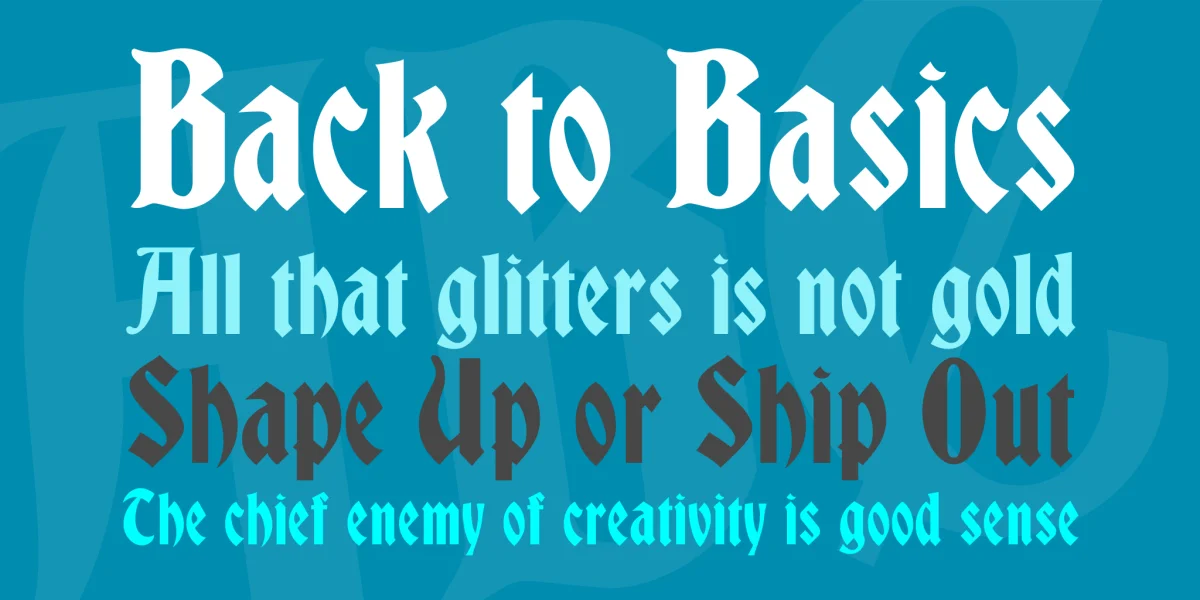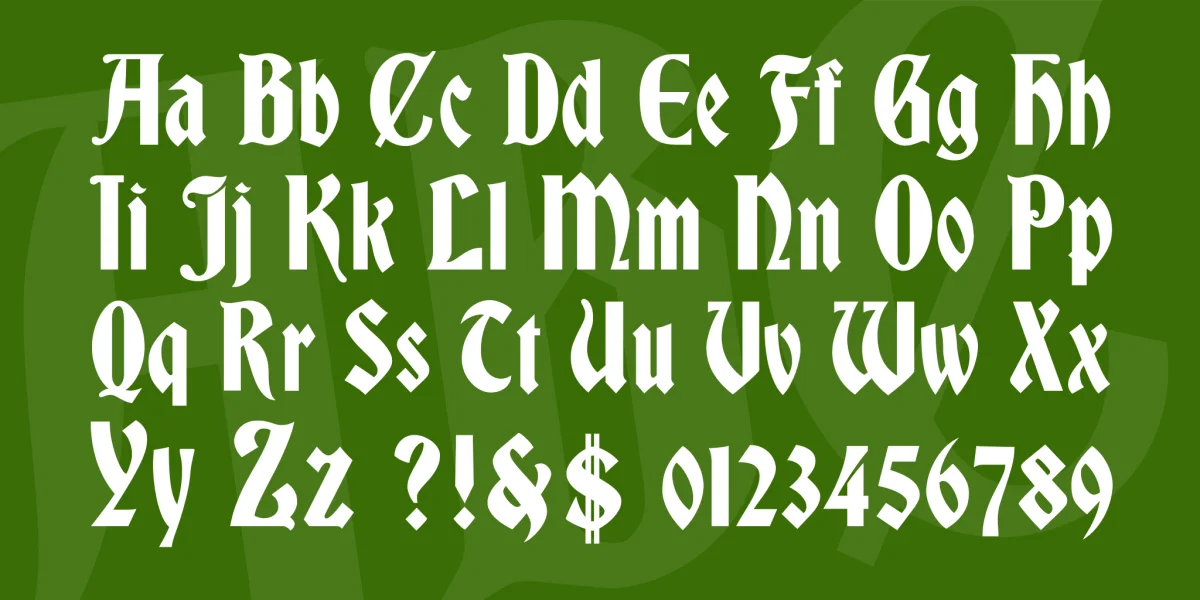
Bradley is an 1895 typeface credited to Joseph Warren Phinney (1848-1934). It was based on lettering by Henry William Bradley (1869-1962) for a Christmas cover of Harper's Bazaar magazine. Bradley was the basis for logotypes such as Firestone and Ketel One, and has been used more recently by Disney on theme park signage.